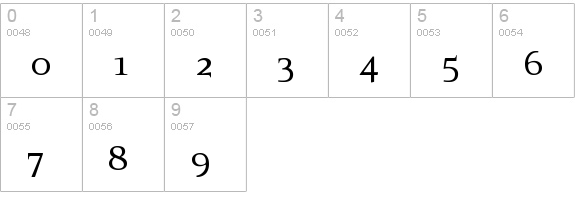
PFExecutive Regular is the standard, neutral variant in the PFExecutive typeface family \xE2\x80\x94 well suited to general body text, paragraphs, and standard typographic work.
The PFExecutive Regular font is a sleek and professional typeface that exudes sophistication and elegance. Its clean lines and balanced proportions make it ideal for a wide range of design projects, from corporate branding to editorial layouts. The font's timeless aesthetic and versatility ensure that it can be used for both print and digital applications with ease. What sets PFExecutive Regular apart is not only its impeccable design but also the fact that it is available for free download at FontsMarket.com. This means that you can access this high-quality font without any cost, making it a valuable resource for designers and creatives looking to elevate their work without breaking the bank. Don't miss out on the opportunity to enhance your projects with the PFExecutive Regular font – download it today and see the difference it can make!